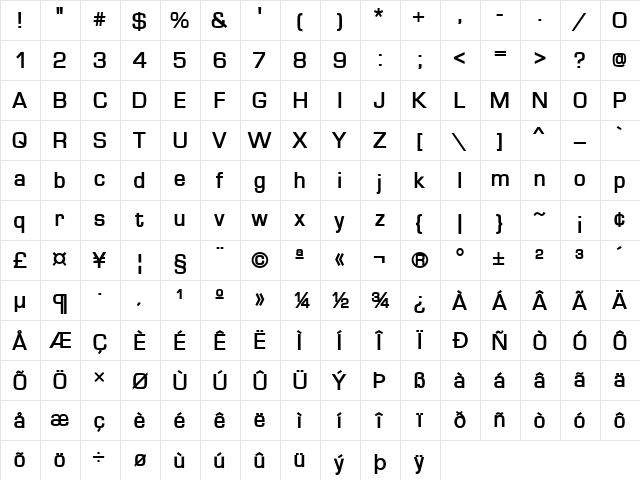
Waukegan LDO Bold
| Foundry | LDO Fonts |
| Designer | Luke Owens |
Design Context for Waukegan LDO Typeface
Waukegan LDO takes a measured approach to typography — its balanced proportions and neutral character make it a reliable workhorse for both digital and print work. Its bold stroke weight gives it real presence on the page.